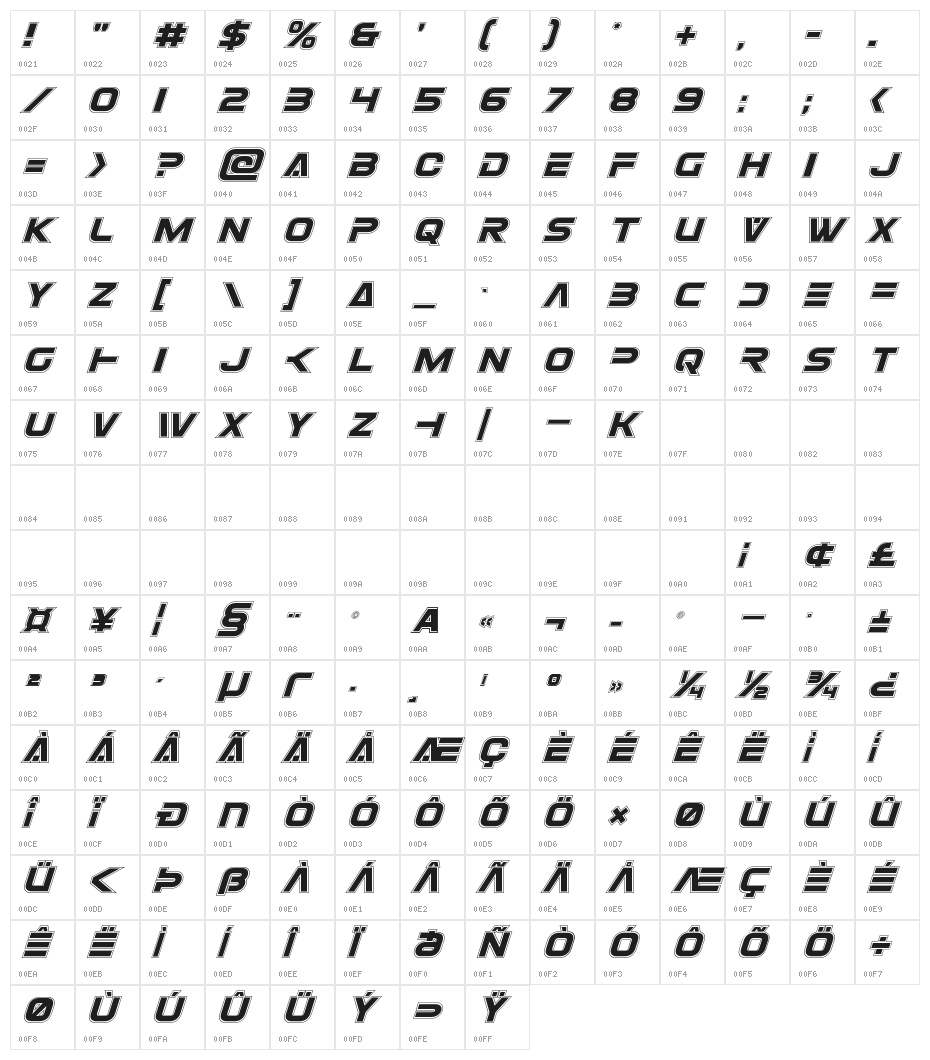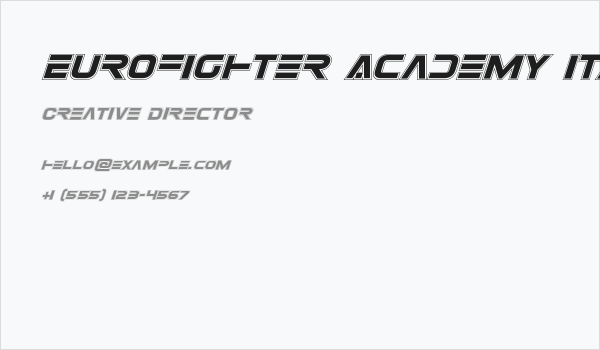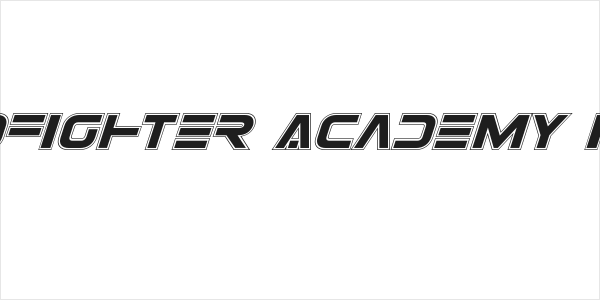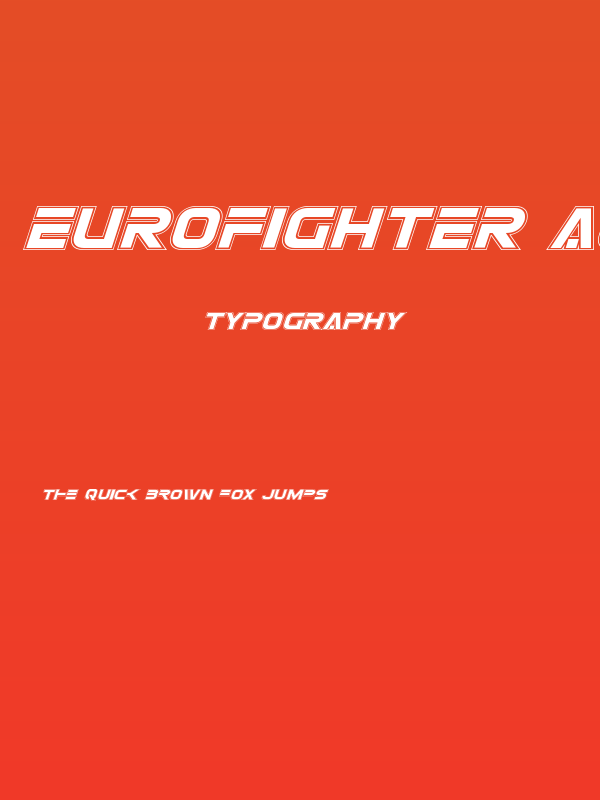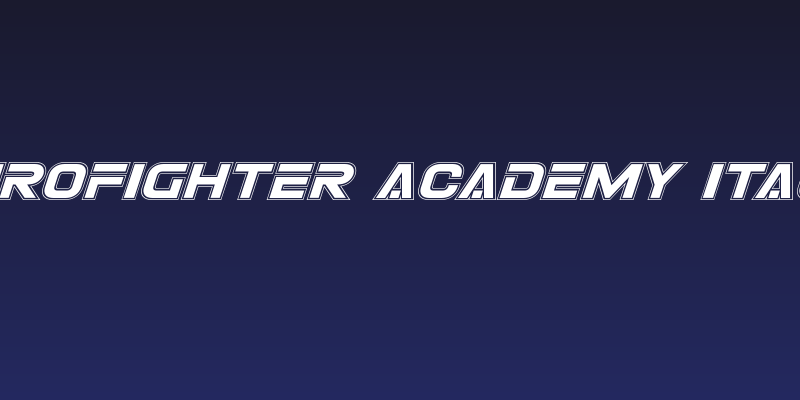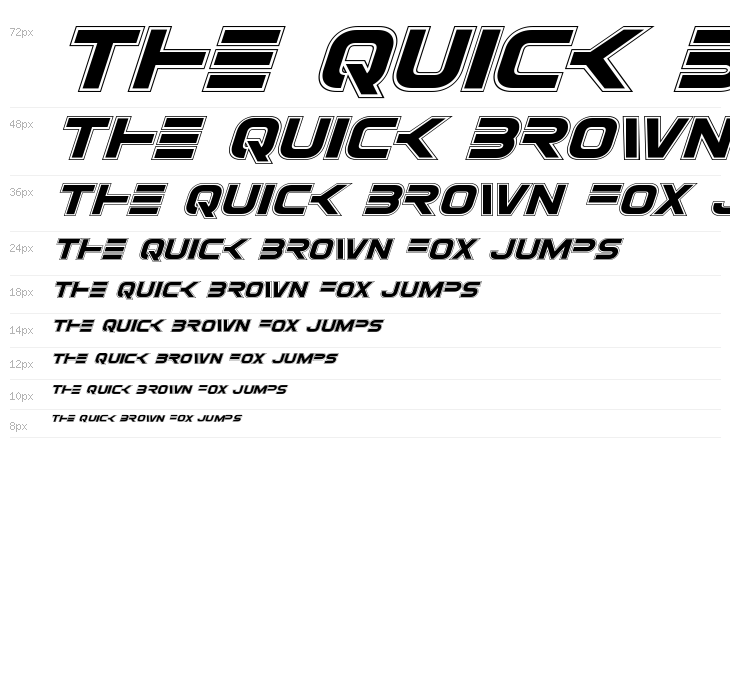
Eurofighter Academy Italic Font
Eurofighter Academy Italic Description
This font features a bold, italicized style with a futuristic and dynamic appearance. The characters are designed with a strong forward slant, giving a sense of motion and speed. Each letter is outlined with a thick border, enhancing its boldness and making it stand out. The design incorporates sharp angles and clean lines, contributing to its modern and sleek look. The numbers and special characters follow the same stylistic approach, ensuring consistency across all elements. This font is ideal for projects that require a bold and impactful visual statement.
| Proposed Projects | Ideal for sports branding, automotive designs, video game titles, and technology-related projects. |